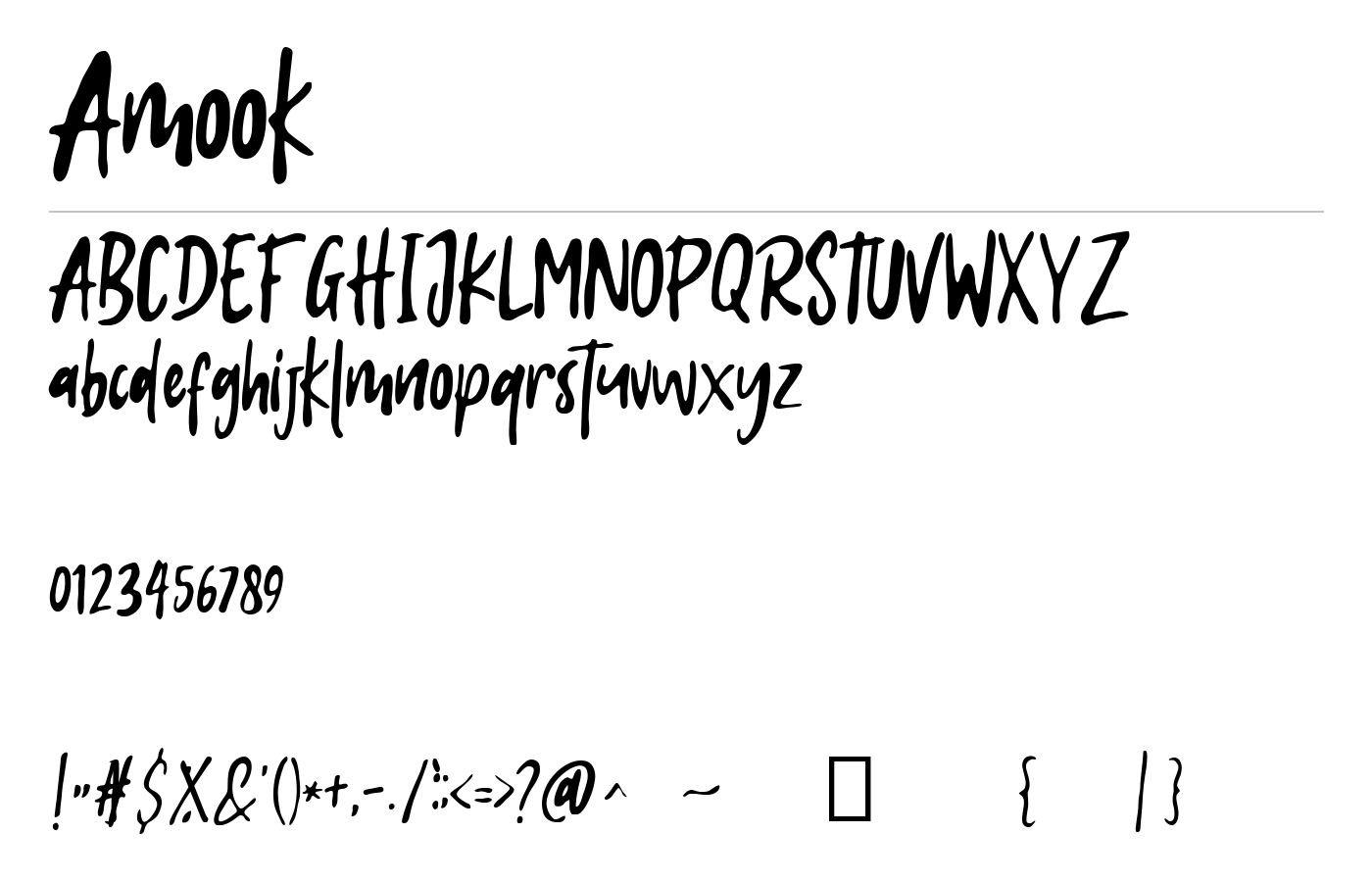
Amook is a playful and casual handwritten font with a lively, organic feel. Its irregular strokes and varied letterforms give it a friendly, approachable character, making it well-suited for informal branding, creative projects, and personal designs that seek a warm, expressive touch. This font works best in headlines, logos, and packaging where a unique, hand-crafted vibe is desired.
Amook Font